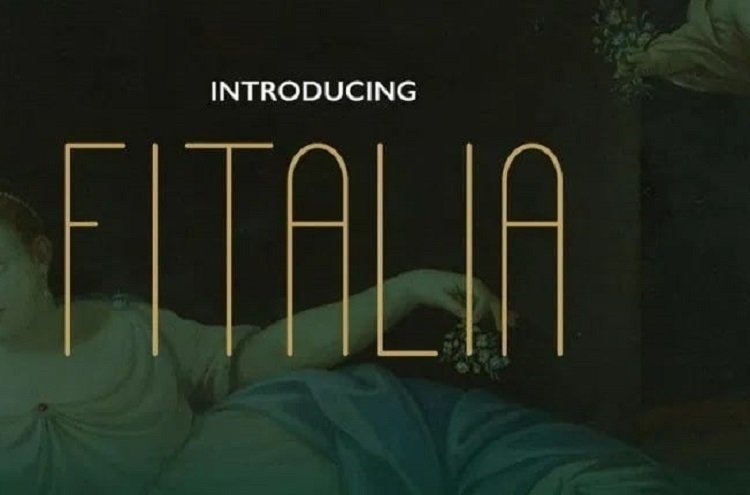
Fitalia Free Font
This is a contemporary and stylish display sans-serif typeface.
Introducing Fitalia Font! It’s a minimalist sans serif. Delicate and romantic, It’s clean lines and sharp edges make it a perfect sans for weddings, logos, quotes, print, signage, and more!
Plus, the different weights make it a stellar option for branding and web use.